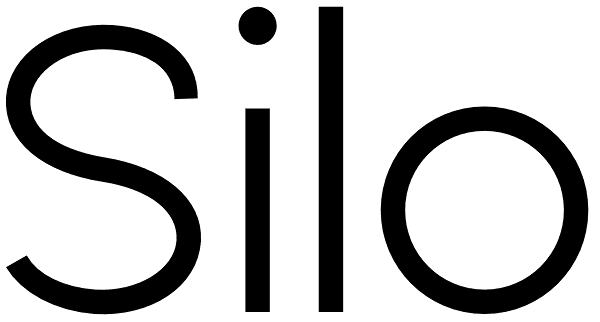
Silo
Designed and built in London by TypeUnion, Silo is a fluid sans serif typeface embodying energetic curves and a clean, functional structure. The Silo Family is made up of 6 weights, which range from a delicate Extra-Light, all the way through to a...